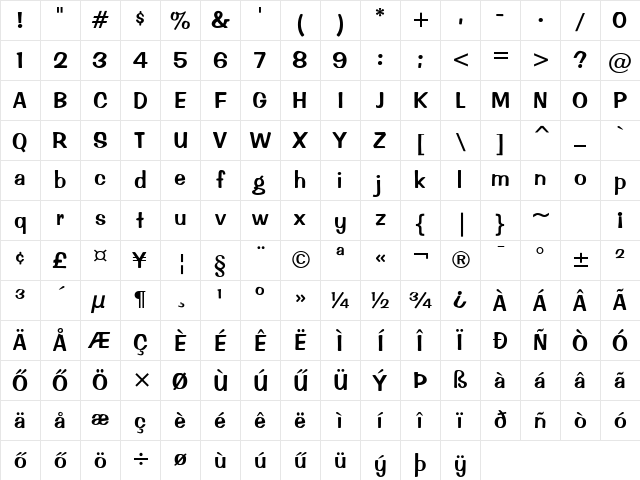
Impress HU Normal Free Font
Impress HU Normal
Impress HU Family
Design Context for Impress HU
Impress HU is a composed and adaptable typeface that performs quietly and consistently across a wide range of design contexts.